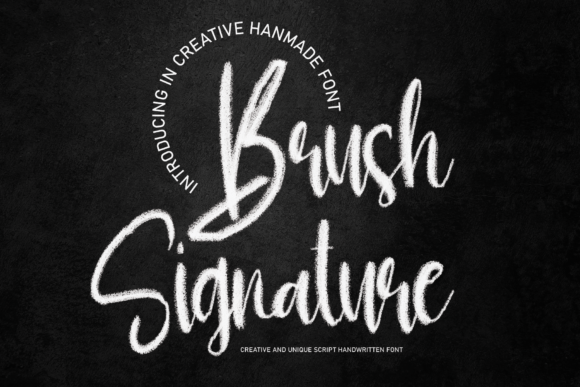
The Perfect Brush Stroke for Your Next Project
Imagine you’re brainstorming ideas for a new logo, and suddenly, you envision a flowing, handwritten script that perfectly captures the essence of your brand. You can almost feel the excitement building up as you imagine the impact it could have on your audience. This is the moment when a great font comes into play, and in this case, we’re talking about the Brush Signature Font.
This stylish, brushed script font is designed to elevate your branding projects, whether it’s a logo, t-shirt printing, or creative products. Its fashionable and modern look makes it perfect for various contexts. As a designer, you’ll appreciate the flexibility and versatility of the Brush Signature Font, which can be used in a wide range of applications.
With the Brush Signature Font, you’ll be able to create unique and eye-catching designs that leave a lasting impression. Whether you’re working on a personal or professional project, this font is sure to add a touch of sophistication and elegance to your work.
Key Features of Brush Signature Font
- Unique Characteristics: The Brush Signature Font features a unique, hand-painted style with subtle texture and imperfections, giving it a personal and artistic touch.
- Font Weight and Style: The font includes 5 different font weights (Thin, Light, Regular, Medium, and Bold) and 2 font styles (Regular and Italic), providing versatility for various design applications.
- Language Support: The Brush Signature Font supports a wide range of languages, including Latin, Cyrillic, and Greek alphabets, making it suitable for international designs.
- Scalability: The font is designed to be highly scalable, allowing it to maintain its unique characteristics and legibility even at large sizes or when zoomed in.
Brush Signature Font Review
Overall, I found the Brush Signature Font to be a charming addition to any design project. ✨ Its playful, handwritten feel makes it perfect for creating a personal and approachable tone. Here are some of its strengths:
- Unique and creative style that sets it apart from other fonts
- Highly versatile, suitable for a wide range of applications, from logos to body text
- Excellent for use in social media, advertising, and other promotional materials
However, I did encounter some limitations that are worth mentioning:
- May not be suitable for formal or professional projects due to its casual feel
- Some characters may not display consistently across different devices or operating systems
- Does not support certain special characters or languages
- May require adjustments to spacing and kerning to achieve optimal readability
- Can be overwhelming when used in large quantities or at too small a size
Overall, I think the Brush Signature Font is a great choice for designers looking to add some personality to their work. While it may not be the best fit for every project, it’s definitely worth considering for the right application.
Use the Brush Signature Font to add a personal touch to your designs.
Experiment with different font sizes, styles, and colors to create a unique look.
Combine the Brush Signature Font with other design elements, such as images and graphics, to create a visually appealing design.
The Brush Signature Font is commonly used for:
Personalized invitations and cards
Custom business cards and letterheads
Handwritten-style typography for creative projects